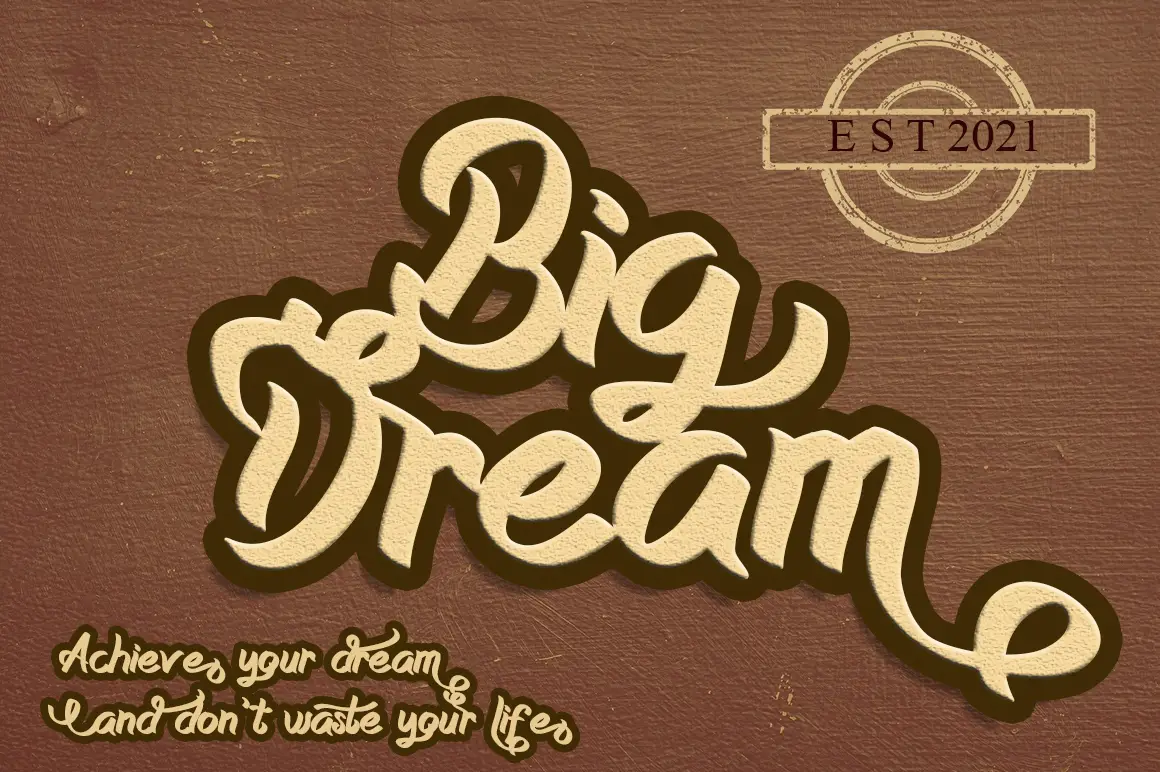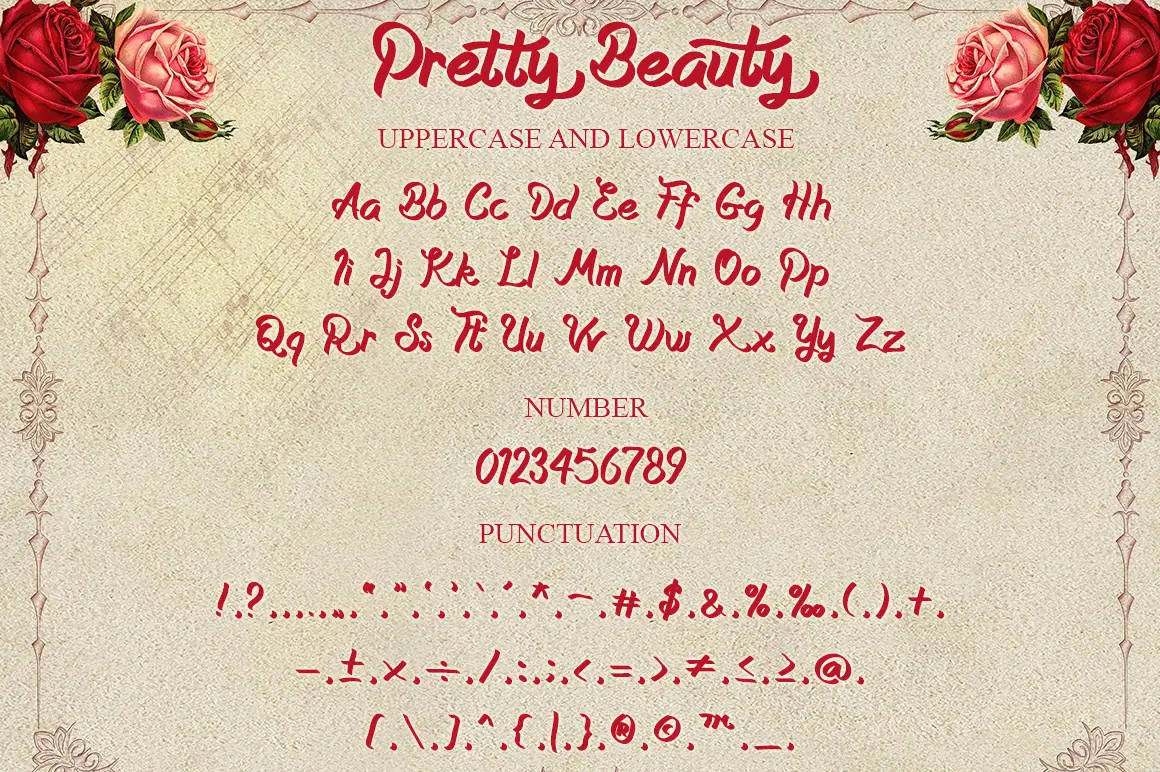
Pretty Beauty Script Font
The Pretty Beauty Script Font is a beautifully crafted typeface that adds a touch of elegance and sophistication to your designs. With its flowing curves and stylish letterforms, this font is perfect for a variety of applications, including branding, logos, invitations, and more.
• Stylish script design
• Easy to read at various sizes
• Ideal for creating elegant wedding invitations and greeting cards.
• Use it for branding projects to convey a sense of luxury.
• Perfect for social media graphics and promotional materials.